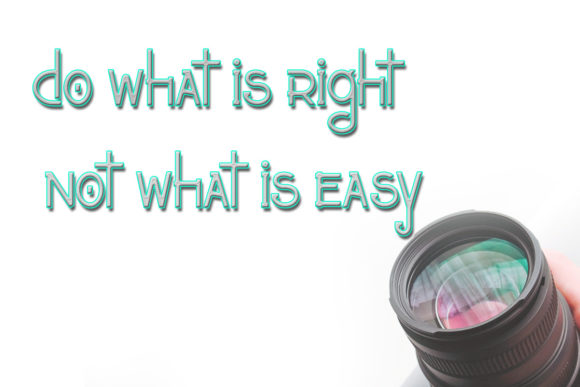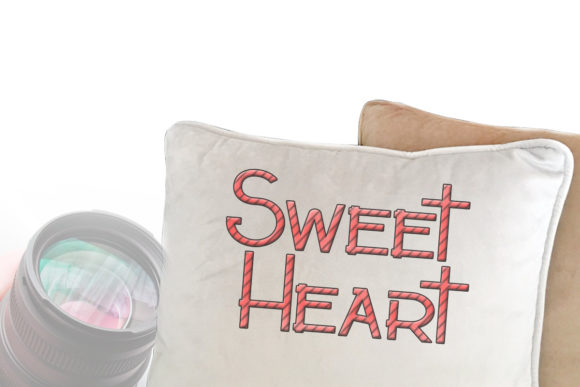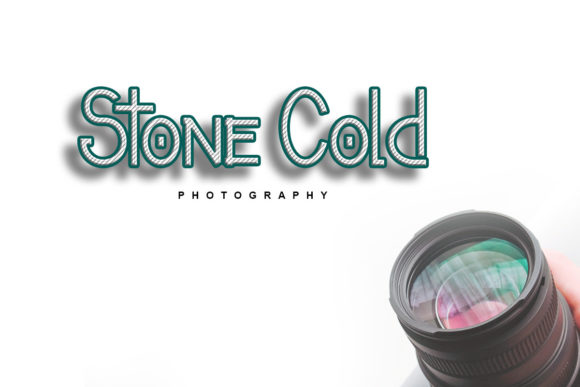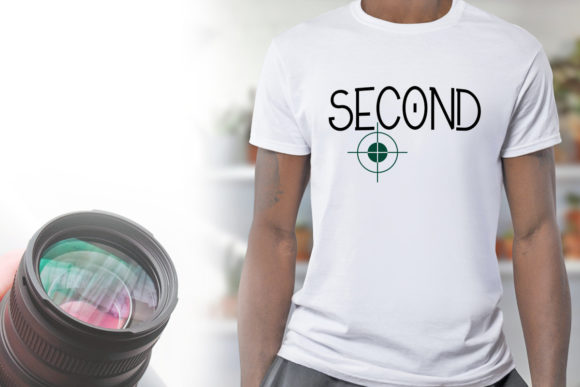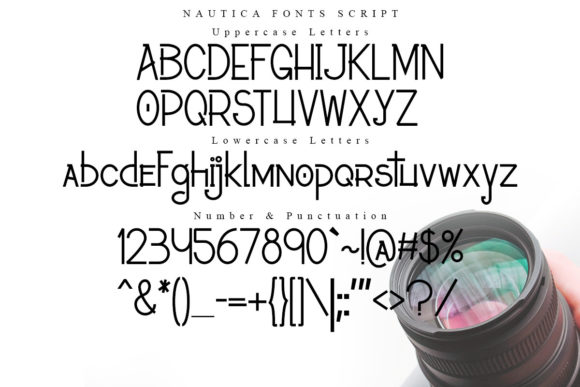
Introduction to Nautica Font
Nautica is a cool and squared lettered display font.
This font is ideal for writing web designs, business cards, or pretty much anything else that requires a unique touch .
Key Features of Nautica Font
Why Choose Nautica Font?
Nautica Font offers exceptional quality and versatility, making it a valuable addition to your design toolkit. Whether you’re creating for personal projects or commercial use, Nautica Font delivers professional results.